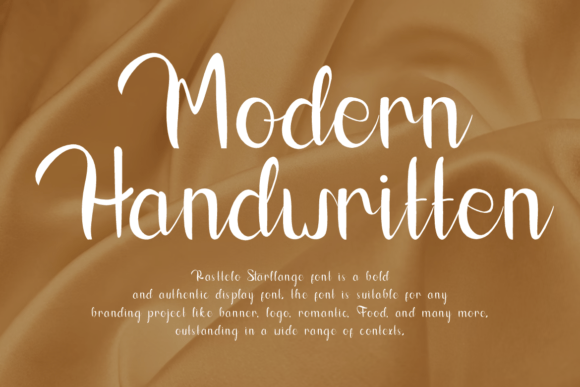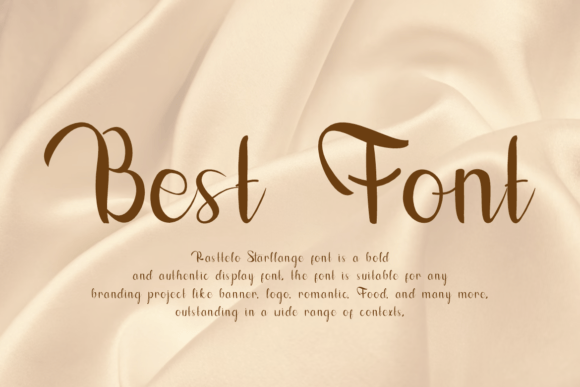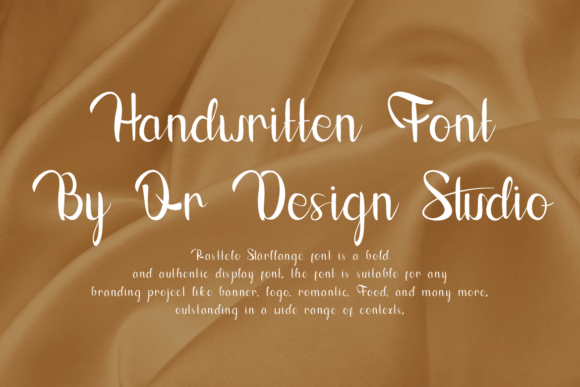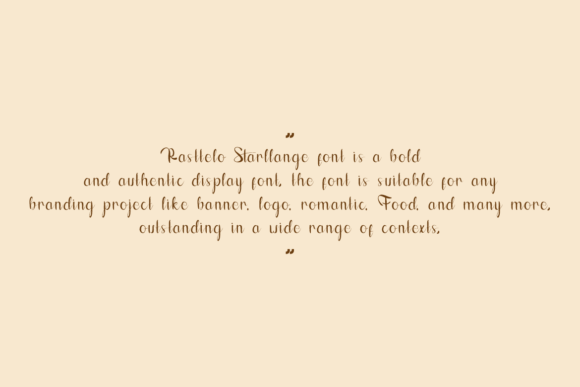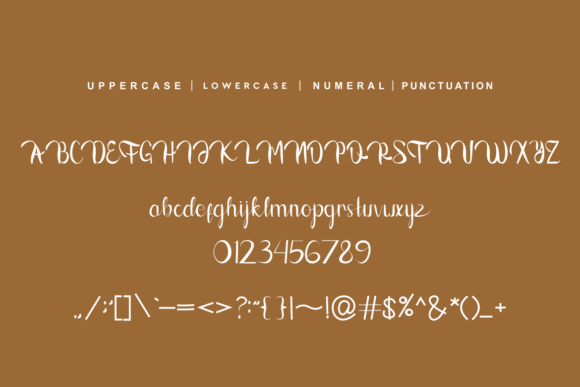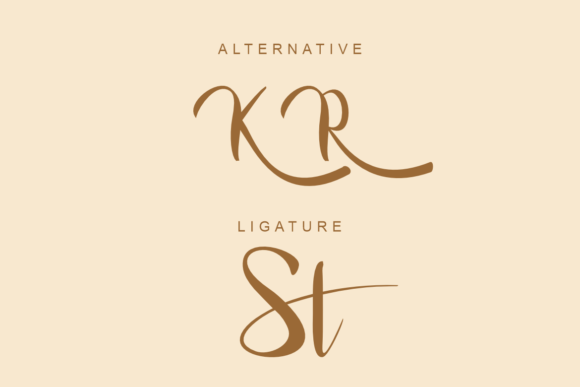
Introduction to Rasttelo Starllange Font
Imagine you’re working on a branding project, and you need a font that exudes boldness and authenticity. You’re browsing through your design resources, searching for the perfect display font that will make your logo or creative project stand out. And then, you stumble upon the Rasttelo Starllange Font – a game-changer in the world of typography.
With its free download option and transparent background, this high-quality font is a valuable addition to any designer’s toolkit. Whether you’re working on a romantic project, a love story, or a corporate branding, the Rasttelo Starllange Font is sure to elevate your design to the next level. Its bold and authentic style makes it a must-have for any creative project.
In this article, we’ll dive into the world of the Rasttelo Starllange Font and explore its features, uses, and benefits. From its design to its applications, we’ll cover everything you need to know about this amazing font. So, let’s get started and discover why the Rasttelo Starllange Font is a valuable resource for designers like you.
Key Features of Rasttelo Starllange Font
- Unique, hand-drawn design with a creative and artistic touch, ideal for various design projects.
- High-quality font with a transparent background, perfect for use as a design resource in creative projects.
- Designed with a high-resolution image, ensuring crisp and clear text display even at larger font sizes.
- Perfect for use in various creative projects, such as logos, graphics, and typography-based designs.
Honest Review: Rasttelo Starllange Font
One of the standout features of this font is its high-quality design. The transparent background makes it easy to use with any background image or color, giving me complete creative control over my projects. ✨ The font’s sleek and modern design also makes it perfect for a wide range of creative projects, from digital art to branding and marketing materials.
Here are some of the things that work well with the Rasttelo Starllange Font:
- High-quality design with a transparent background
- Perfect for creative projects, including digital art, branding, and marketing materials
However, I do have a few limitations to mention:
- The font may not be suitable for print materials due to its digital origins
Overall, I’m really impressed with the Rasttelo Starllange Font. It’s a valuable addition to any designer’s toolkit and is sure to become a go-to font for my future creative projects. ⚠️ Just be aware of the limitations mentioned above, and you’ll be all set to create some amazing designs!
Tips for Getting the Most Out of Rasttelo Starllange Font
To get the most out of this high-quality font, use it on a transparent background to create a seamless design. Experiment with different font sizes, colors, and combinations to create a unique and creative look.
The Rasttelo Starllange Font is ideal for creative projects such as branding, logos, brochures, business cards, and presentations. Its high-quality design makes it perfect for any project that requires a professional and eye-catching font.
Yes, the Rasttelo Starllange Font supports transparent backgrounds, making it perfect for designs that require a seamless integration with images or videos. This feature allows you to create stunning visuals with a professional finish.